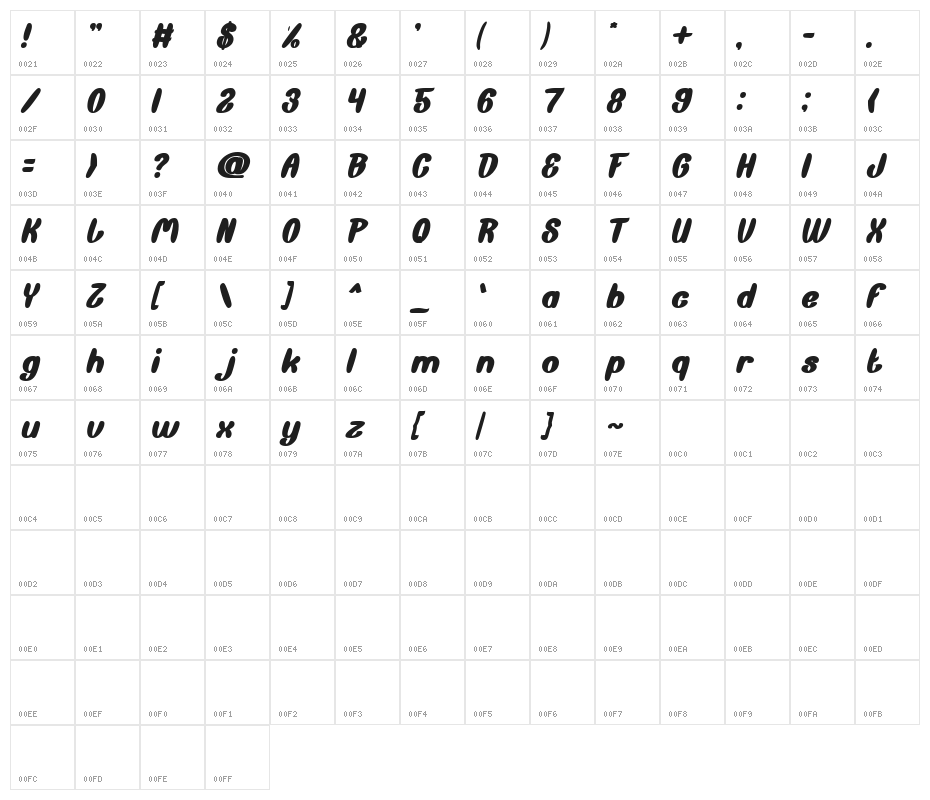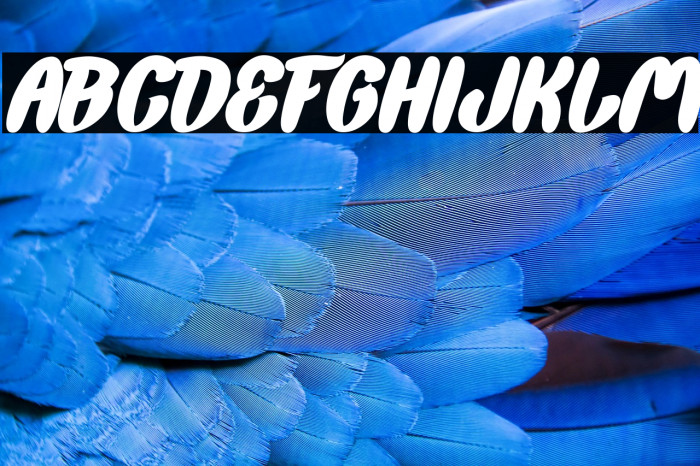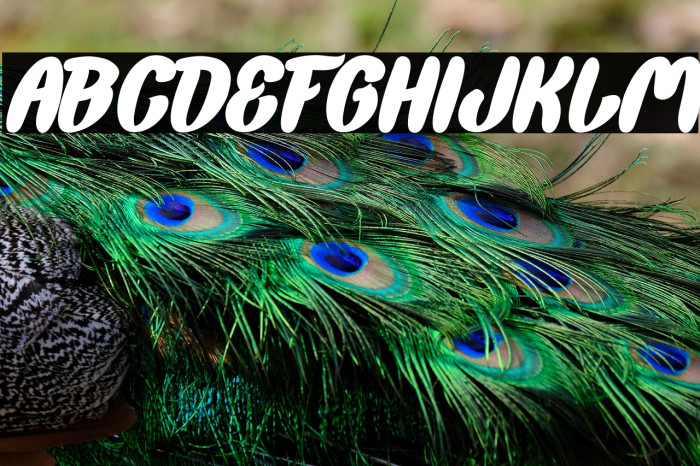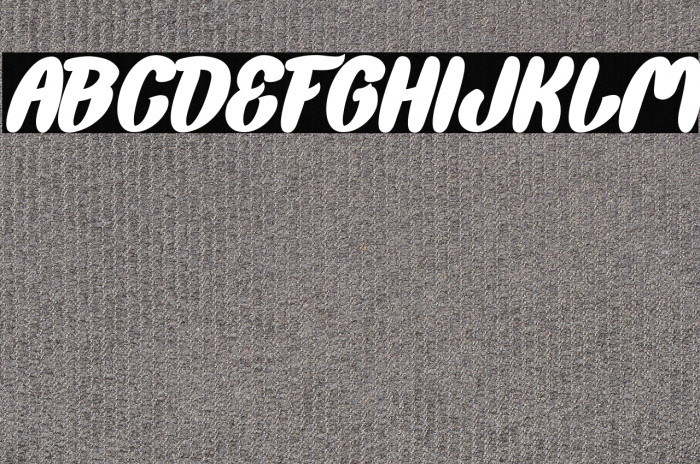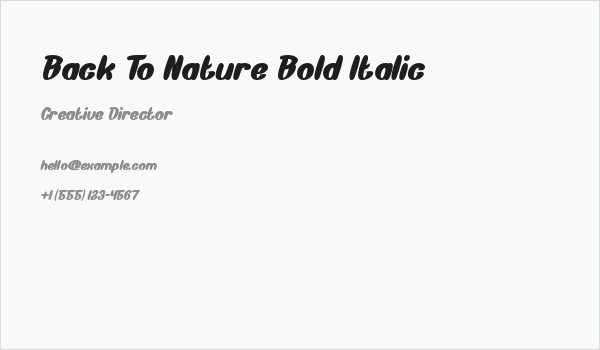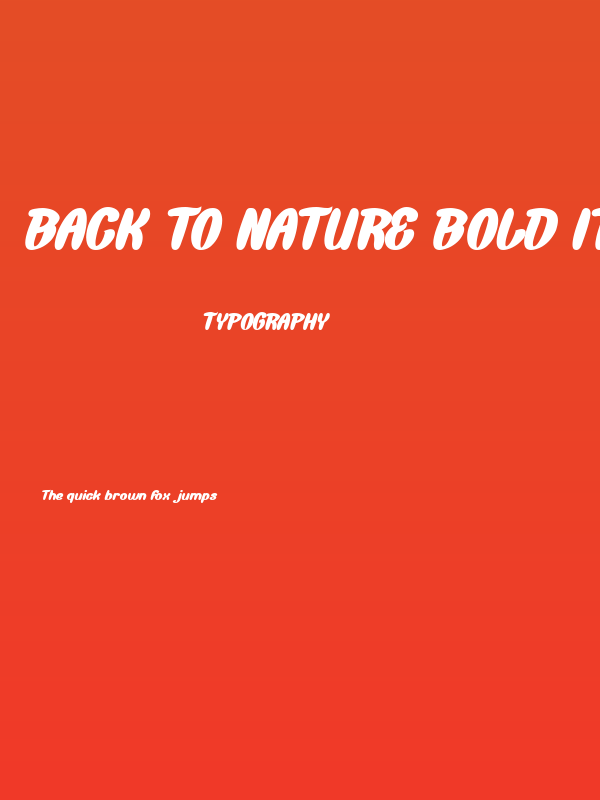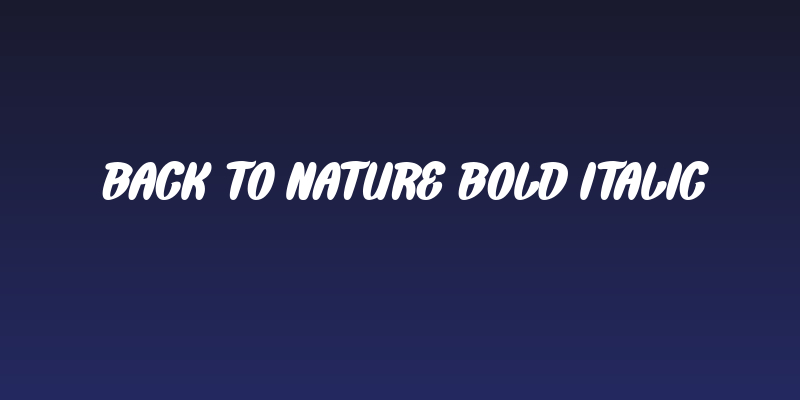
Back To Nature Bold Italic Font
Back To Nature Bold Italic Description
This font features a bold and italic style with a playful and organic feel. The letters are rounded and have a smooth, flowing appearance, giving it a handwritten quality. The uppercase and lowercase letters maintain a consistent weight, contributing to its boldness. The numbers and special characters are designed to match the overall aesthetic, ensuring a cohesive look. This font is ideal for projects that require a friendly and approachable tone, such as children's books, casual branding, or nature-themed designs.
| Proposed Projects | Ideal for children's books, casual branding, nature-themed designs, and playful invitations. |